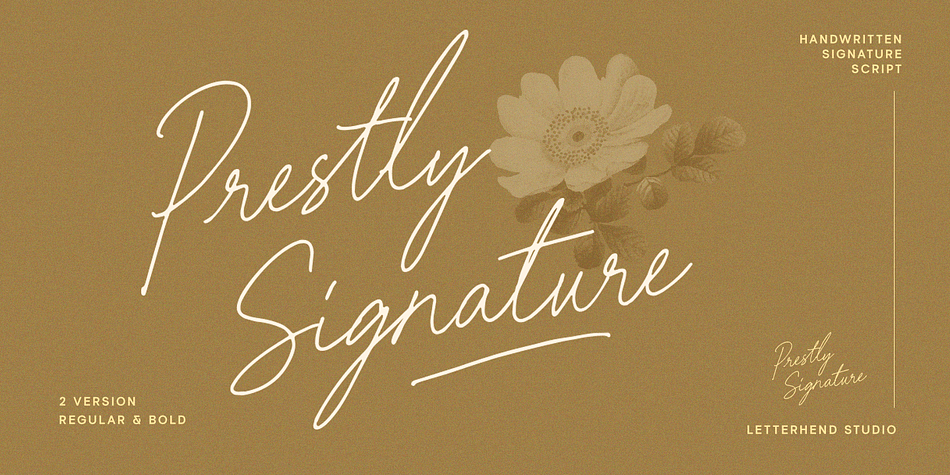
Prestly Signature
Designed by Hendry Juanda, Prestly Signature is a modern calligraphy font family. This typeface has two styles and was published by Letterhend Studio.
Prestly Signature is a signature script based on manual hand writing. The stylistic alternate, ligatures and the tick and thin stroke make this font looks a real hand writing instead of typing a font. This type of font perfectly made to be applied especially in logo, and the other various formal forms such as invitations, labels, logos, magazines, books, greeting / wedding cards, packaging, fashion, make up, stationery, novels, labels or any type of advertising purpose.